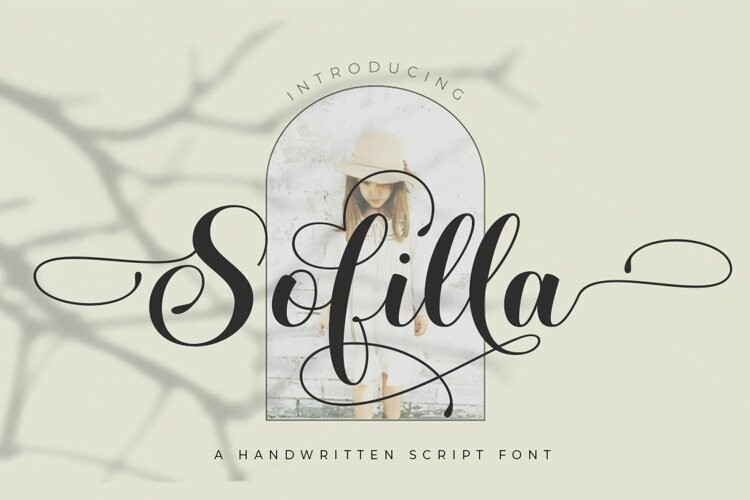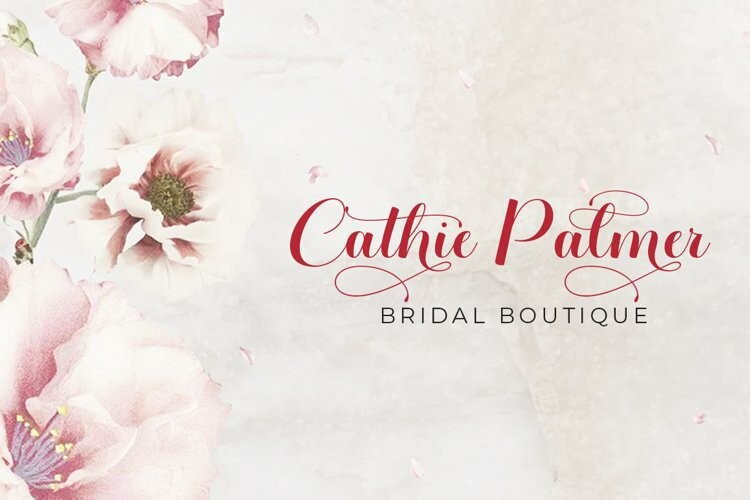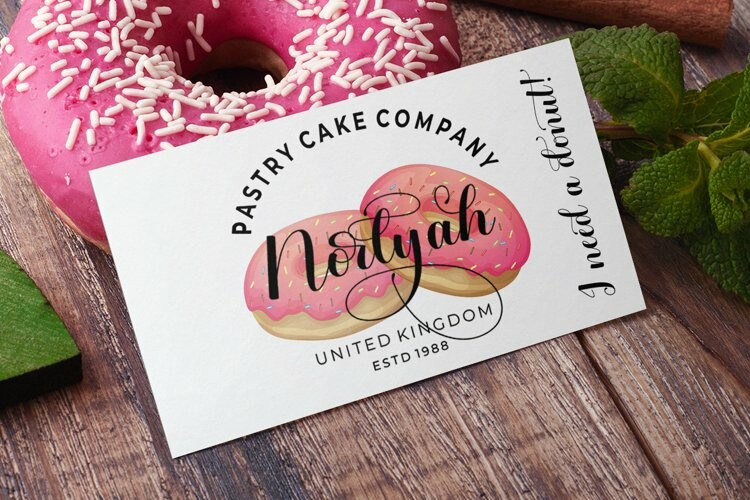
Sofilla Font
Sofilla FontMeet the new slick calligraphy font – Sofilla. This gorgeous script is for those who need some elegance and style for their designs and is perfect for wedding invitations, save date cards, feminine branding, and other necessities. This font is modern, simple, but still authentic.
Sofilla includes the complete set of Basic Uppercase and Lowercase Characters, Numbers, and Punctuation Marks. It also contains binders and many stylistic alternatives to perfectly recreate natural calligraphy (check the preview to see all of them).